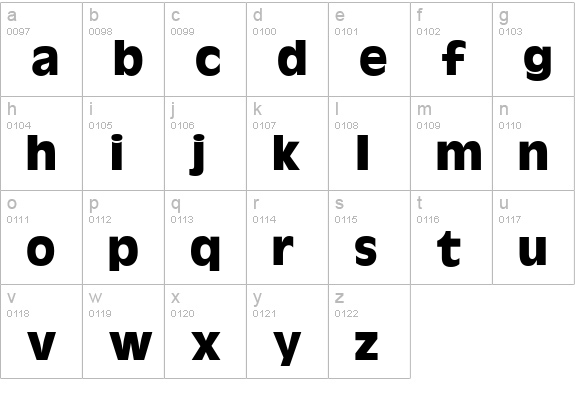
Olive Bold is a strong, high-contrast variant in the Olive typeface family \xE2\x80\x94 well suited to headlines, attention-grabbing titles, and strong calls-to-action.
Introducing Olive Bold font, a striking and versatile typeface that exudes confidence and elegance. With its bold and timeless design, Olive Bold is perfect for making a statement in any project. This modern font features clean lines and a strong presence, making it ideal for headlines, titles, and branding materials. The best part? Olive Bold font is completely free to download at FontsMarket.com, allowing you to add a touch of sophistication to your designs without breaking the bank. Whether you're working on a poster, website, or logo, Olive Bold font will elevate your project and leave a lasting impression. Download this stunning font today and unleash your creativity with ease.